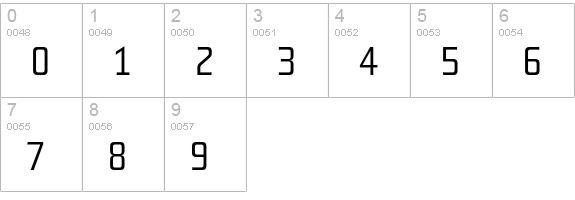
Introducing Teuton Mager, a striking and visually captivating font that embodies the essence of modernity and sophistication. With its sleek lines and clean curves, this font exudes a sense of timeless elegance, making it perfect for a wide range of design projects. Teuton Mager is the epitome of versatility, seamlessly blending into both digital and print media. Whether it's for creating captivating logos, eye-catching headlines, or stylish branding materials, this font is sure to make a lasting impression. What makes Teuton Mager even more appealing is that it is completely free! Yes, you read that right. This exceptional font is freely available to download at FontsMarket.com, a trusted source for high-quality fonts. Now, you can enhance your designs without worrying about breaking the bank. With Teuton Mager, you have the freedom to explore your creativity and push the boundaries of design. Its extensive character set allows you to express your message with clarity, while its bold and commanding presence demands attention. Whether you're a professional designer or a DIY enthusiast, Teuton Mager is the perfect addition to your font collection. So why wait? Head over to FontsMarket.com and get your hands on this remarkable font today. Unleash your creativity and elevate your designs with Teuton Mager – the free font that sets your projects apart.